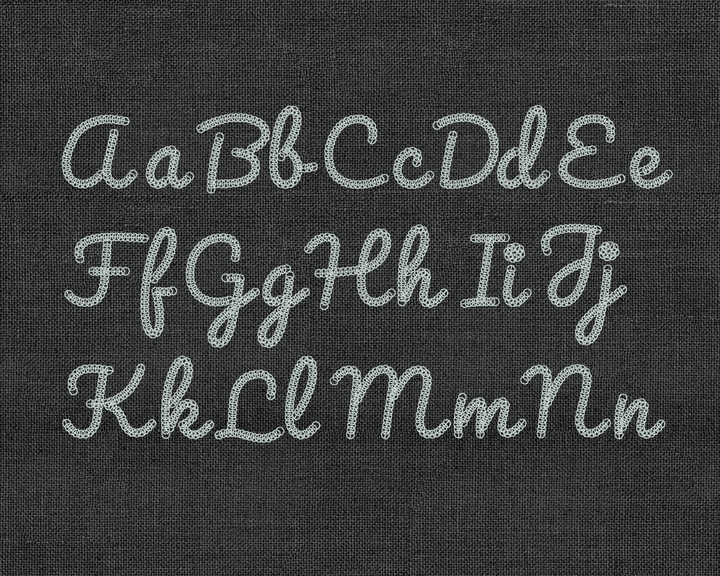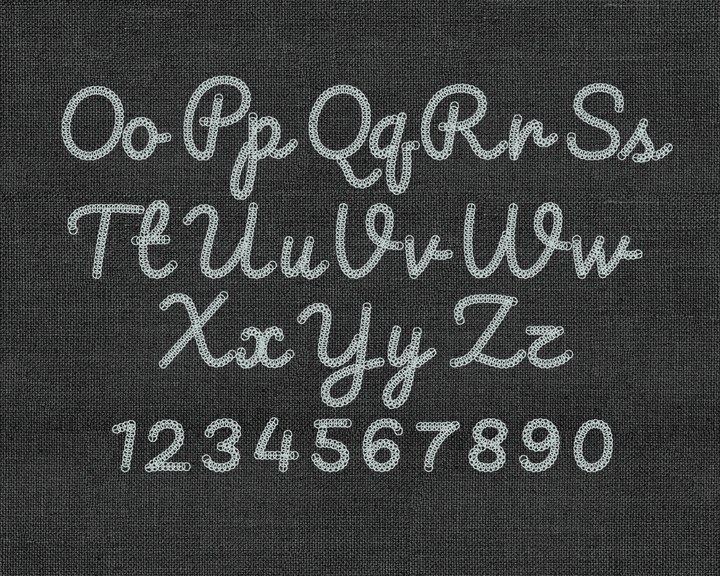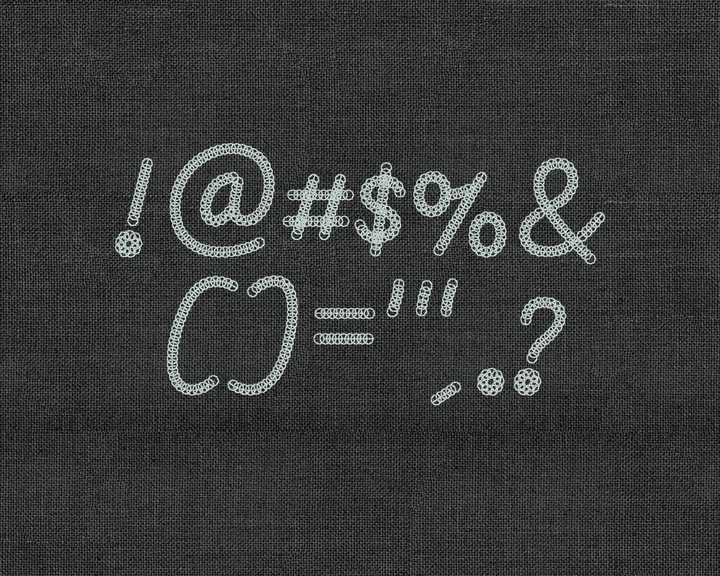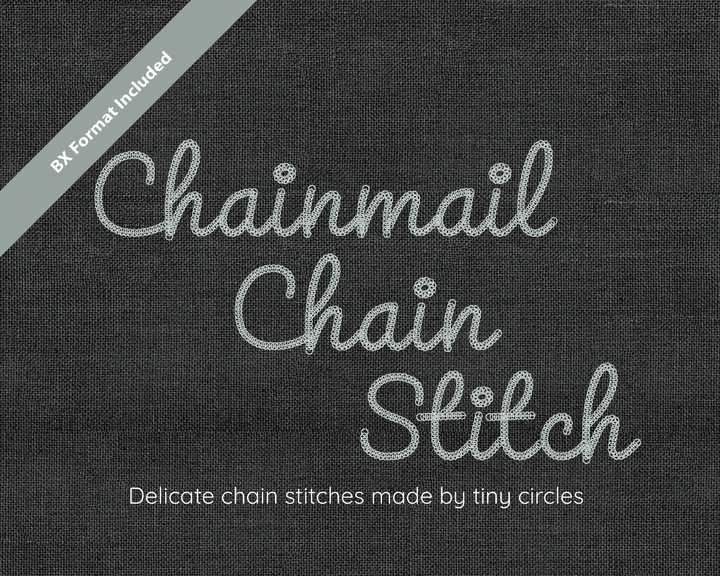
Chainmail Chain Stitch Embroidery Font
Introducing Chainmail Chain Stitch – the perfect embroidery font that combines the intricate beauty of chainmail with the whimsical charm of bubble letters. Crafted with meticulous attention to detail, this font features delicate chain stitches arranged in the shape of tiny circles, creating a captivating visual resemblance to the legendary armor. Whether you’re aiming for a medieval-inspired design or a playful and bubbly aesthetic, “Chainmail Chain Stitch” offers limitless creative possibilities. Embrace the fusion of history and contemporary style, and elevate your embroidery projects with this unique and versatile font.
Stitch Type: Running stitch/Chain stitch